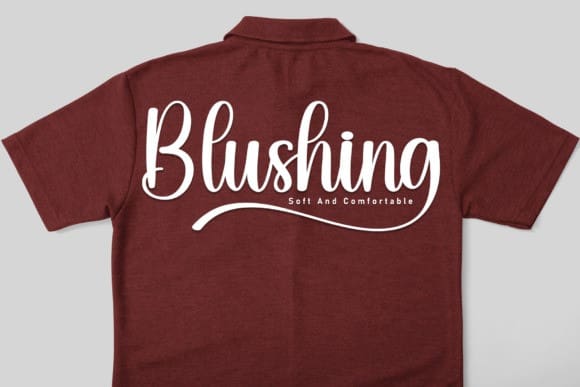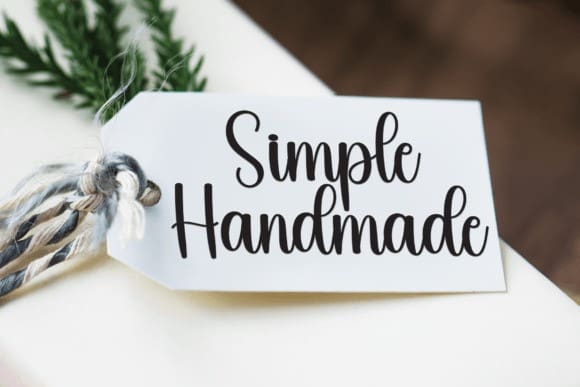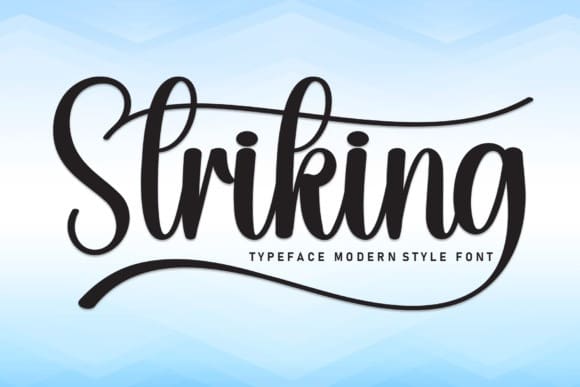
Striking Script Font
Striking Script Font is a modern handwritten script. This font looks natural, stylish, and perfect for any extraordinary project that requires a handwritten feel. Its versatile style looks lovely on wedding invitations, thank you cards, quotes, greeting cards, logos, business cards, and every other design which needs a customized touch.